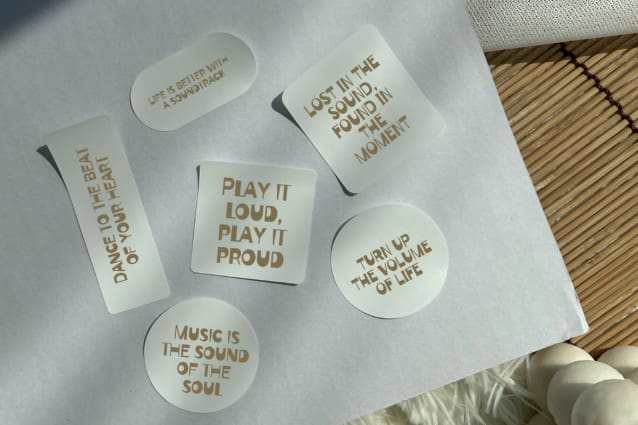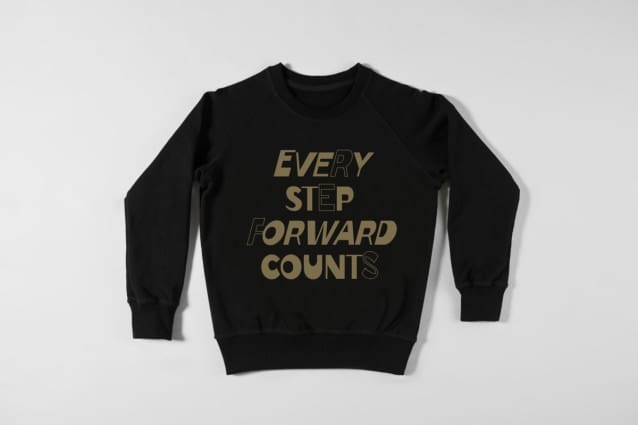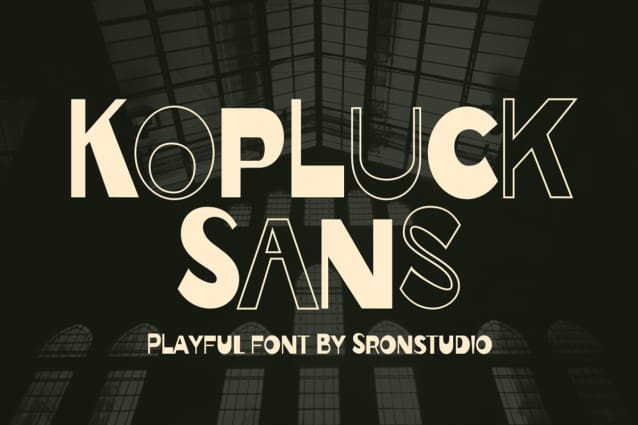
Kopluck Sans Font
Kopluck Sans is a fun and playful display font that brings energy and creativity to your designs. With its quirky and bold letterforms, this font is perfect for crafting eye-catching headlines, posters, packaging, or any project that needs a lively and cheerful touch. Let Kopluck Sans add a dose of charm and personality to your work!